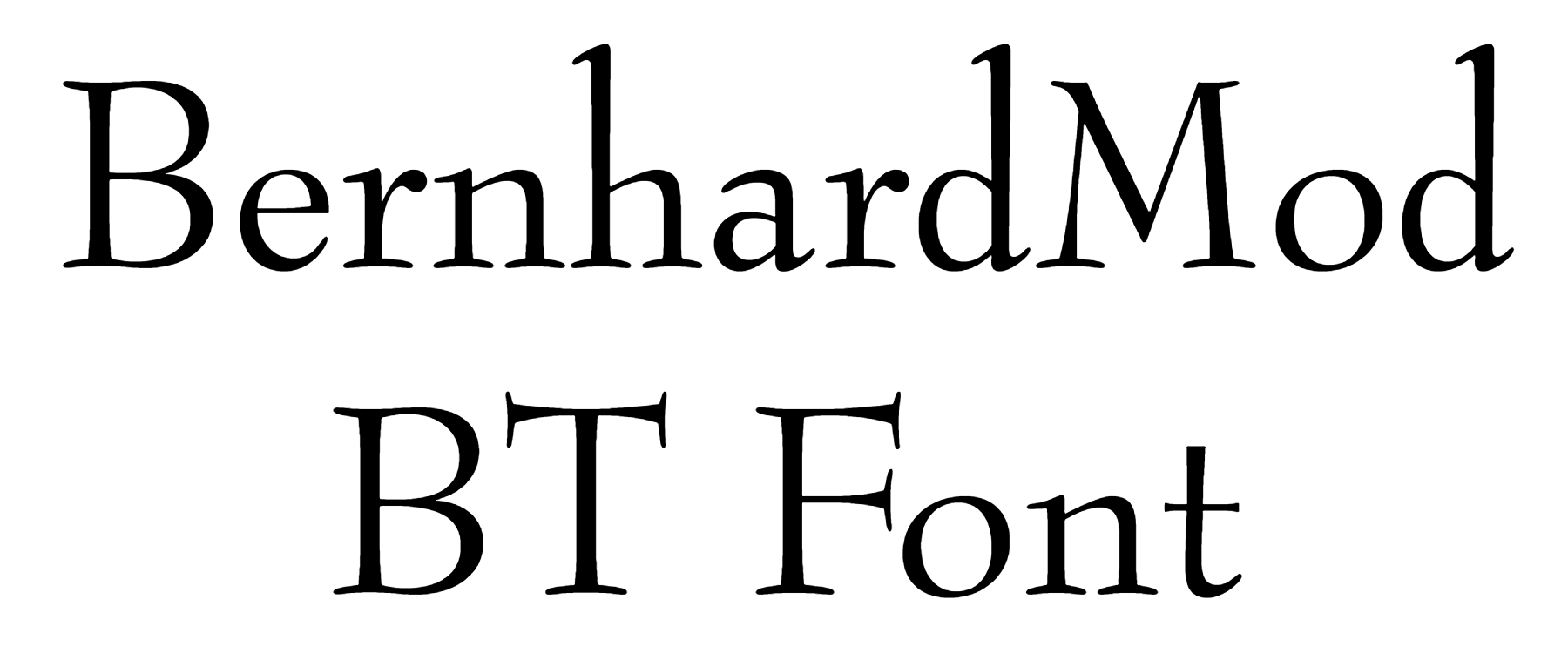
BernhardMod BT
BernhardMod BT is a serif font (1993). It has the traditional, bookish feel of type you see in novels, newspapers and long-established brands. You get four styles in one free ZIP, and the preview above lets you test each one before you download.
- Year: 1993 (from the copyright line in the font)
- Font styles: 4 (Roman, Bold, Bold Italic and Italic)
- Glyphs: 260 in the Roman style
BernhardMod BT covers the full alphabet in upper and lowercase, plus all ten numbers, so you can set names, dates and prices without switching fonts. Everyday marks like &, !, ? and @ are there too. Thanks to its accented letters, it also works for Spanish, French, German, Portuguese and Italian, not just English.
Designers usually reach for fonts like BernhardMod BT when they're making book covers, magazine headlines and classic branding. Serif fonts shine in headlines and printed text. For long paragraphs on phones, check that it still reads well at small sizes. Because the family has more than one style, you can mix them in a single design for headings, subheadings and highlights.
Yes. BernhardMod BT includes the accented letters needed for Spanish, French, German, Portuguese and Italian, so it works for more than just English.